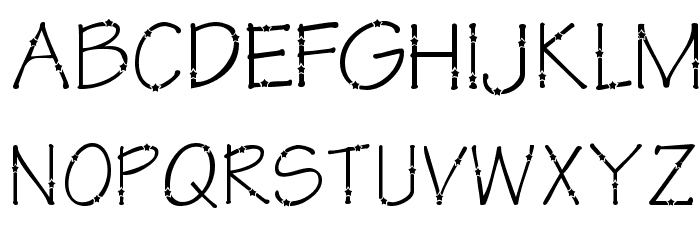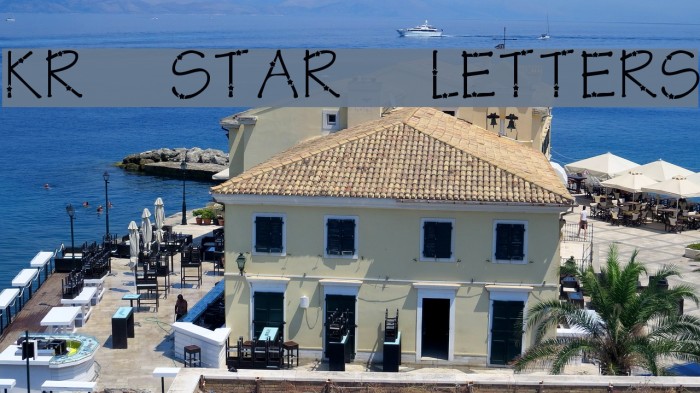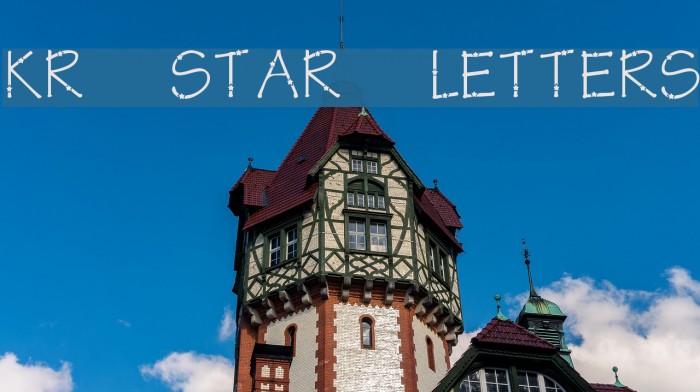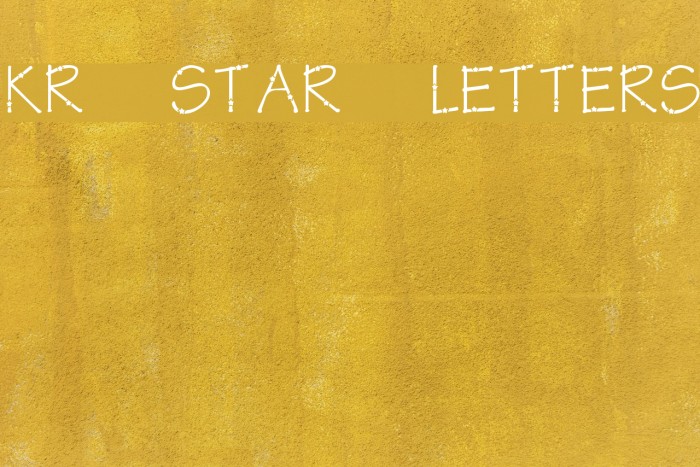
KR Star Letters Font
This font features a playful and decorative style, characterized by star-like embellishments at various points along the strokes of each letter. The uppercase and lowercase letters maintain a consistent design, with each character adorned with small star shapes that give it a whimsical and unique appearance. The numbers and special characters follow the same decorative theme, ensuring a cohesive look across all glyphs. This font's distinct style makes it stand out, offering a creative and fun option for various design projects.
A decorative font with star embellishments on each character.
- Proposed Projects: Ideal for children's book covers, party invitations, playful branding, and any project requiring a whimsical touch.